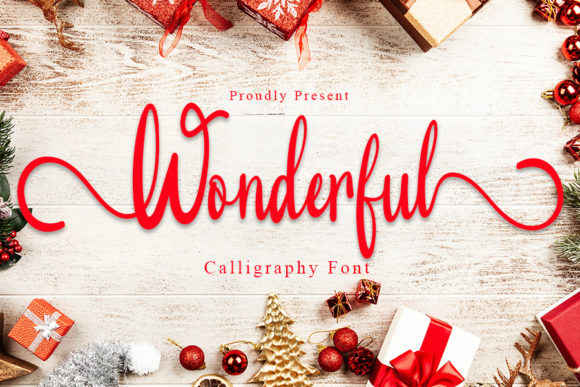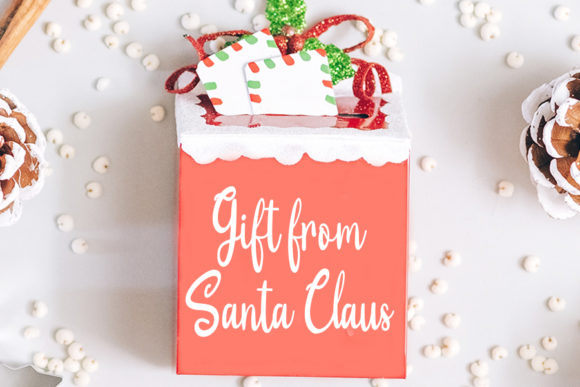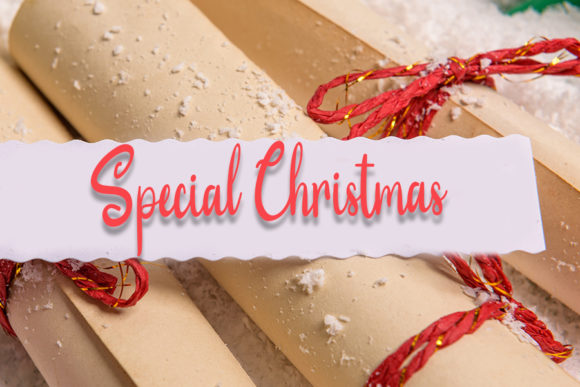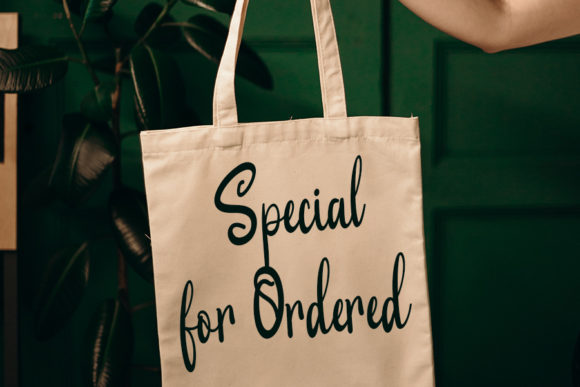
About Wonderful Font
Wonderful is a romantic and sweet calligraphy typeface with characters that dance along the baseline. It can be used for various purposes such as logos, wedding invitations, headings, t-shirts, letterhead, signage, labels, news, posters, badges and so much more.